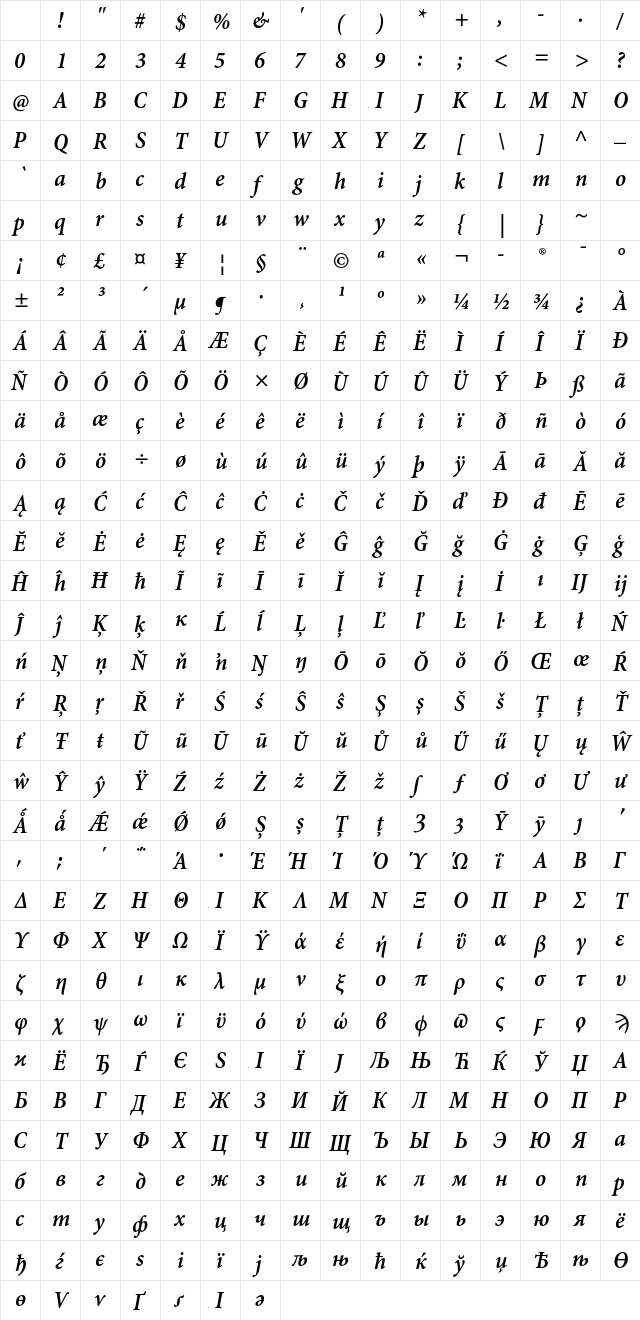
Minion Pro Semibold Cond Italic Caption
Style: Semibold Cond Italic Caption
Complete Minion Pro Semibold Cond Italic Caption glyph index. Displaying only characters natively supported by Minion Pro Semibold Cond Italic Caption font.
Design Context for Minion Pro
Minion Pro is a composed and adaptable typeface that performs quietly and consistently across a wide range of design contexts. The slanted form adds forward momentum and visual energy. Its bold stroke weight gives it real presence on the page. Its narrow stance lets it pack a punch even in space-constrained designs.
Pro Tip: Use Minion Pro for emphasis, pull quotes, and subheadings where its slanted energy can add rhythm to the layout.